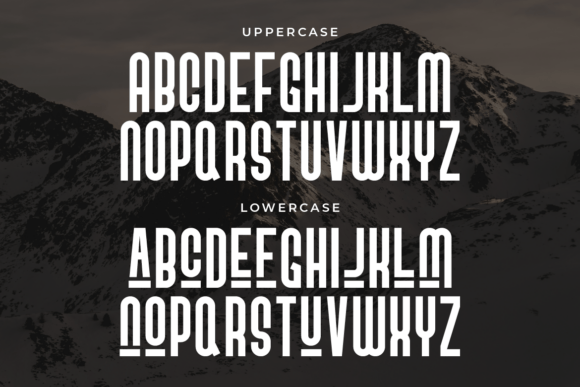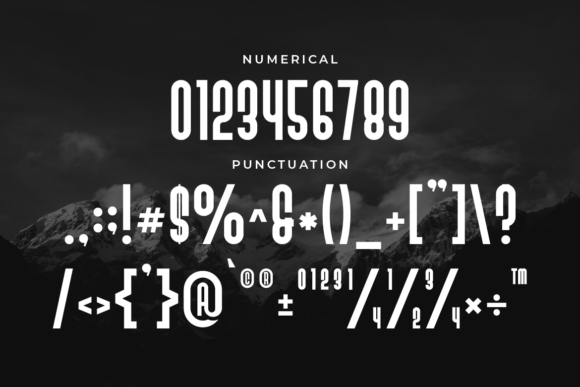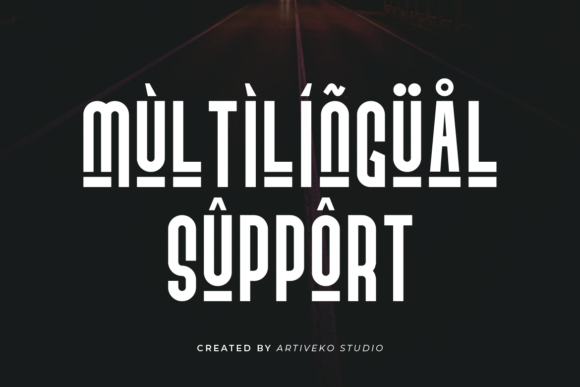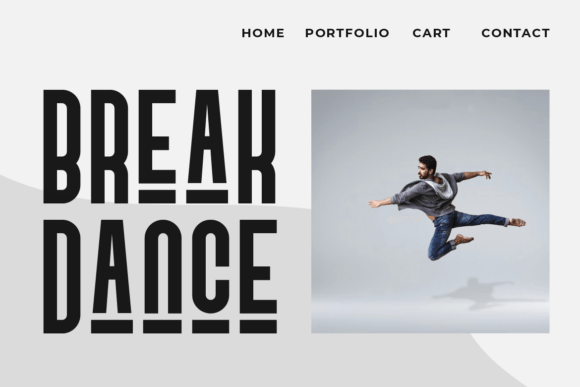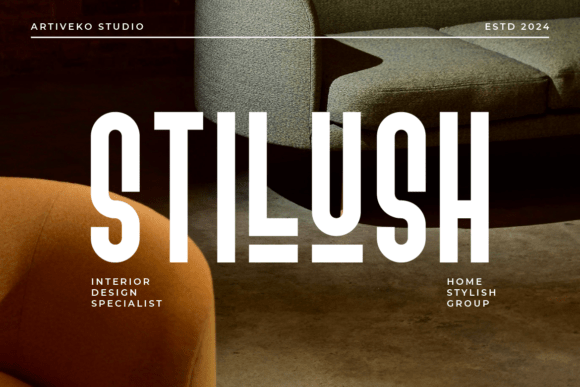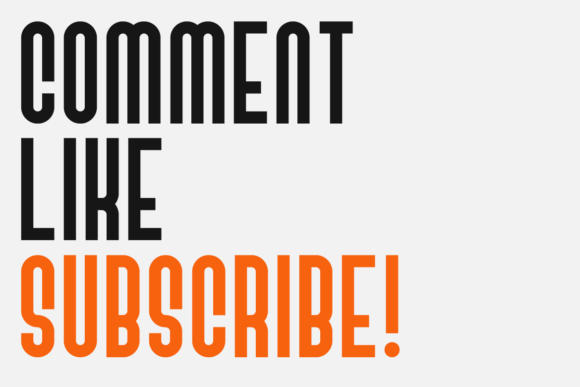
Introduction to Dorataki Font
Dorataki is a sleek and contemporary sans serif font crafted for modern design needs.
With clean lines, geometric proportions, and refined details, Dorataki offers a minimalist aesthetic that works perfectly for branding, editorial layouts, web design, product packaging, and social media graphics .
Dorataki Font offers exceptional quality and versatility, making it a valuable addition to your design toolkit. Whether you’re creating for personal projects or commercial use, Dorataki Font delivers professional results.